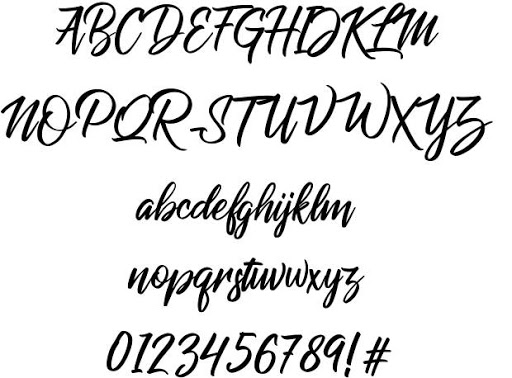
Raph Lanok Future Font
Raph Lanok Future Font miles common identification isn’t unusual in neon font. This font is a calligraphic typeface. This notable font has made extensively in a wonderful type keeping an opentype outline the form.
This font comes under the beauty of bold fonts. This font is carried out in replica and paste talents. This moreover lets in the bold and italic tendencies.
Style Of Raph Lanok Future Font Free